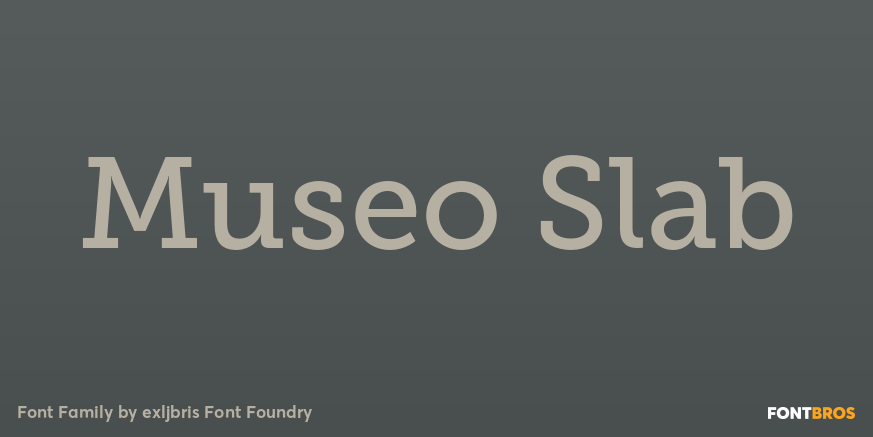
HomeFont BrosSerifMuseo Slab Serif Museo Slab FacebookXPinterestWhatsApp 1 of 1 About Museo Slab is a robust slab serif with Museo\’s friendliness. It is a perfect match for Museo Sans.  DOWNLOAD NOW People also explored Medhom Font Cinderland Font Glakome Font Robertto Font Beautiful Creature Font Delay Font Butter Font Village Stylish Font Flying Birds Font 270 0 TagsMuseo Slab Font Previous articleKapsalonNext articleRaspberry Jam LEAVE A REPLY Cancel reply Comment: Please enter your comment! Name:* Please enter your name here Email:* You have entered an incorrect email address! Please enter your email address here Website: Save my name, email, and website in this browser for the next time I comment. Personal Use Free Chandella Personal Use Free Read more about this font Catandra Script Personal Use Free Read more about this font Numberpile Personal Use Free Read more about this font Calega Personal Use Free Read more about this font BLOG How to Install and Use Fonts on Windows, macOS, and Web Projects How to Install and Use Fonts on Windows, macOS, and Web Projects Fonts are a crucial part of design and branding. Whether you’re designing a... Best Fonts for T-Shirt Design – Top 2025 Picks Transform Your Website: Elevate Your Typography with 7 Best Web Font Generators Free vs Paid Fonts: Why Investing in Premium Fonts Is Worth It